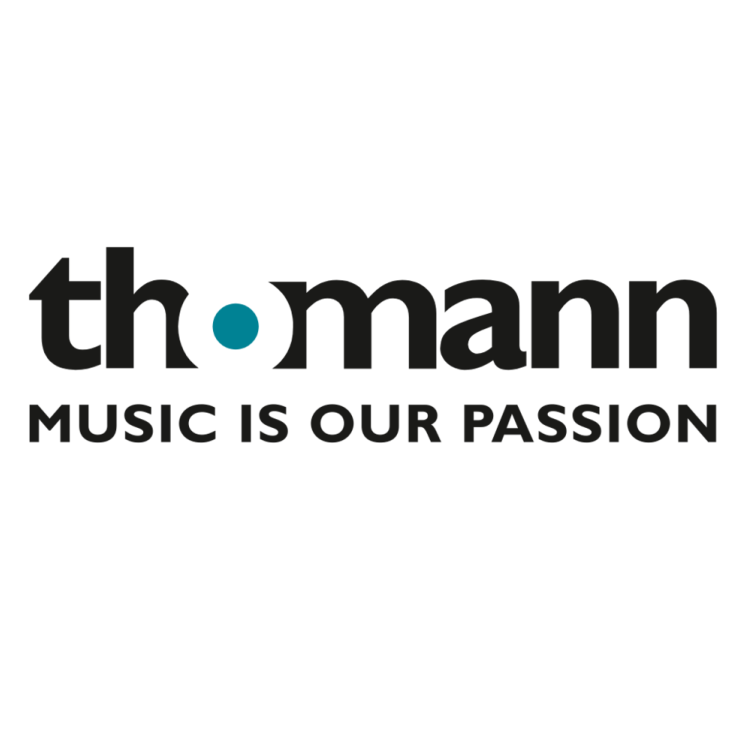
Thomann Logo Font
Fonts in UseThomann is a music retailer based in Burgebrach, Germany. It was founded by Hans Thomann in 1954 and has since grown into Europe's largest music store, with an online presence and multiple brick-and-mortar locations throughout Europe.
The typeface used for both the brand's logo and tagline text resembles Gill Sans Bold, a font designed in 1927 by the renowned English typeface designer Eric Gill. More information on the Gill Sans typeface can be found here.